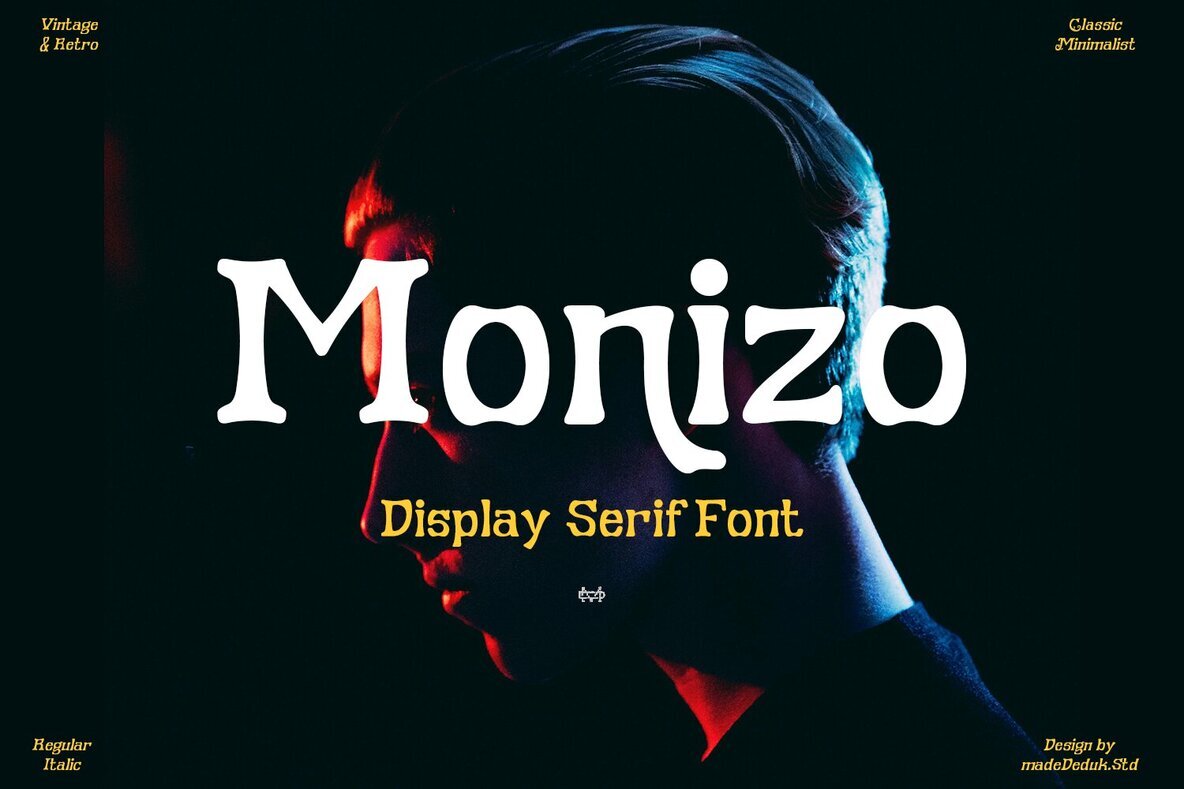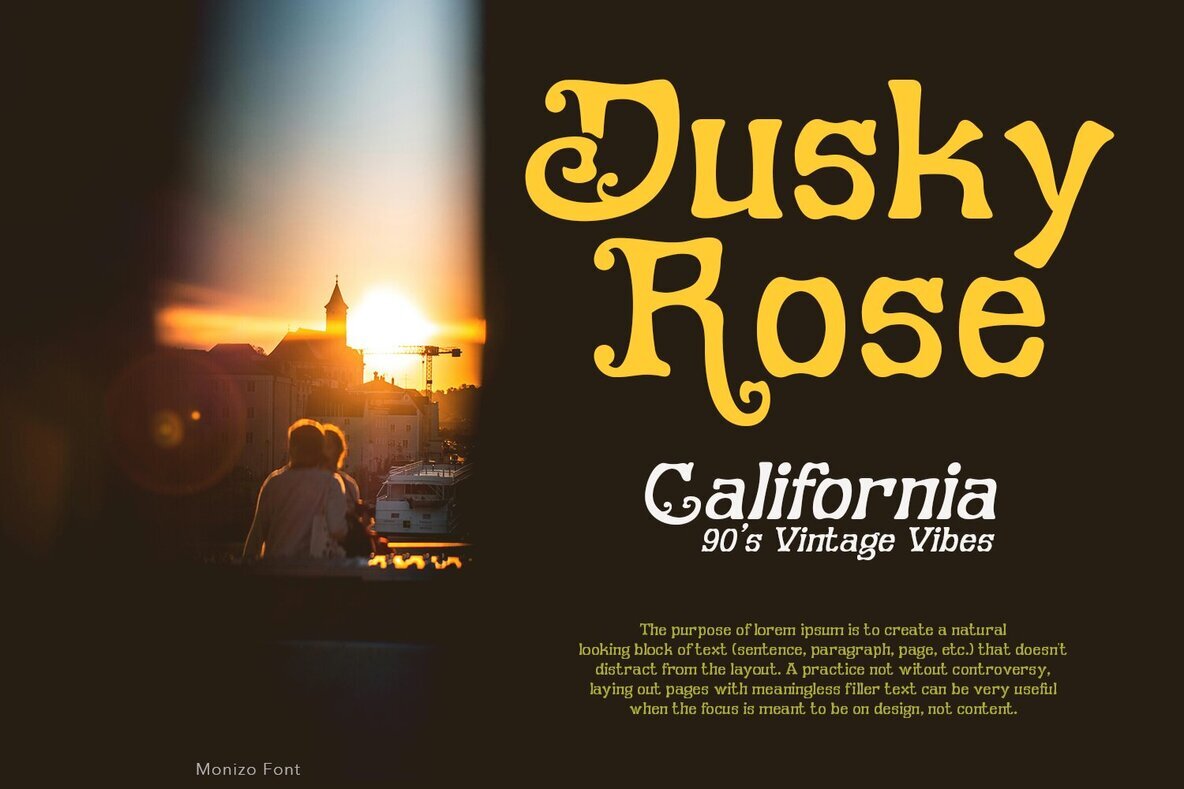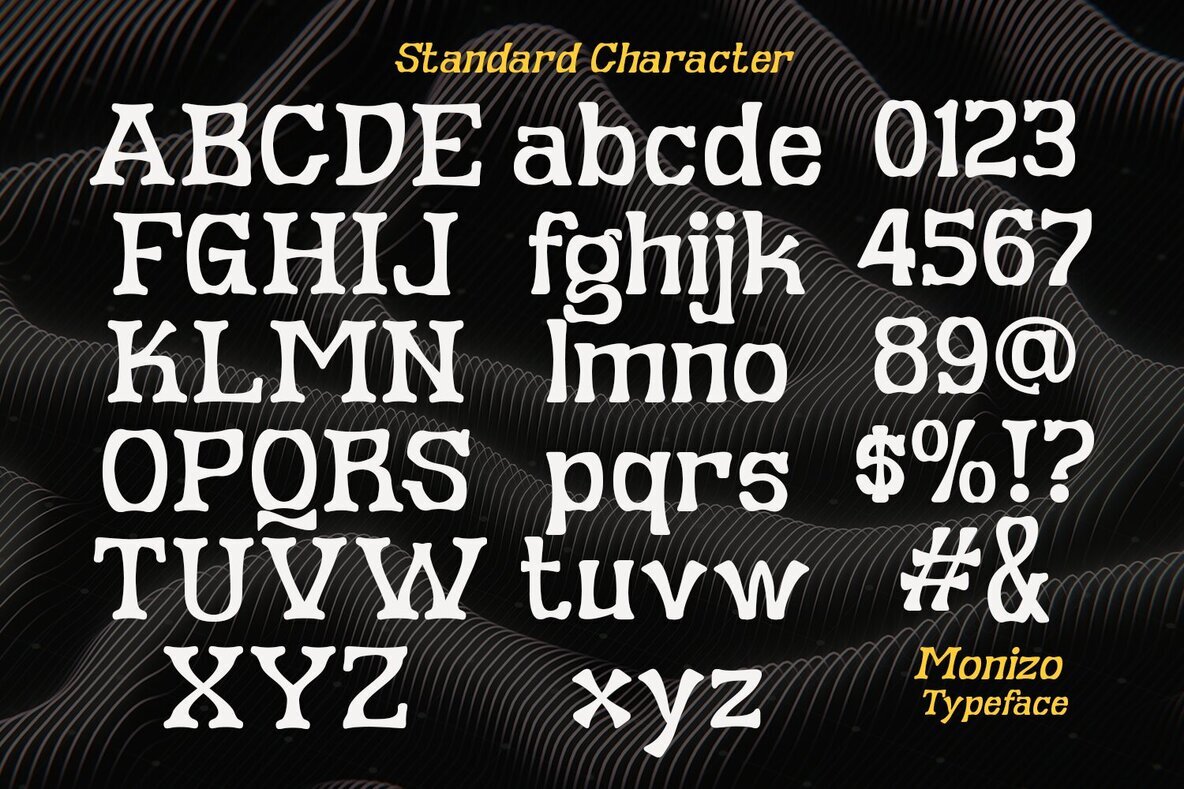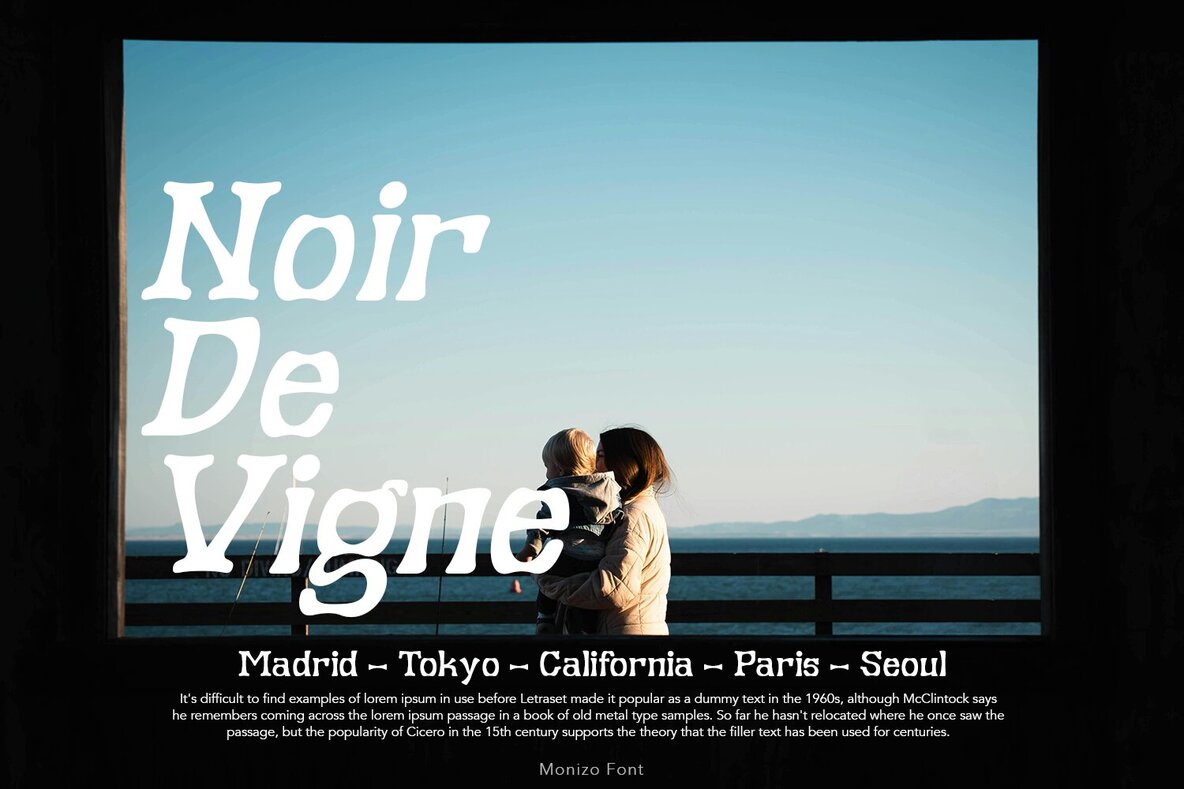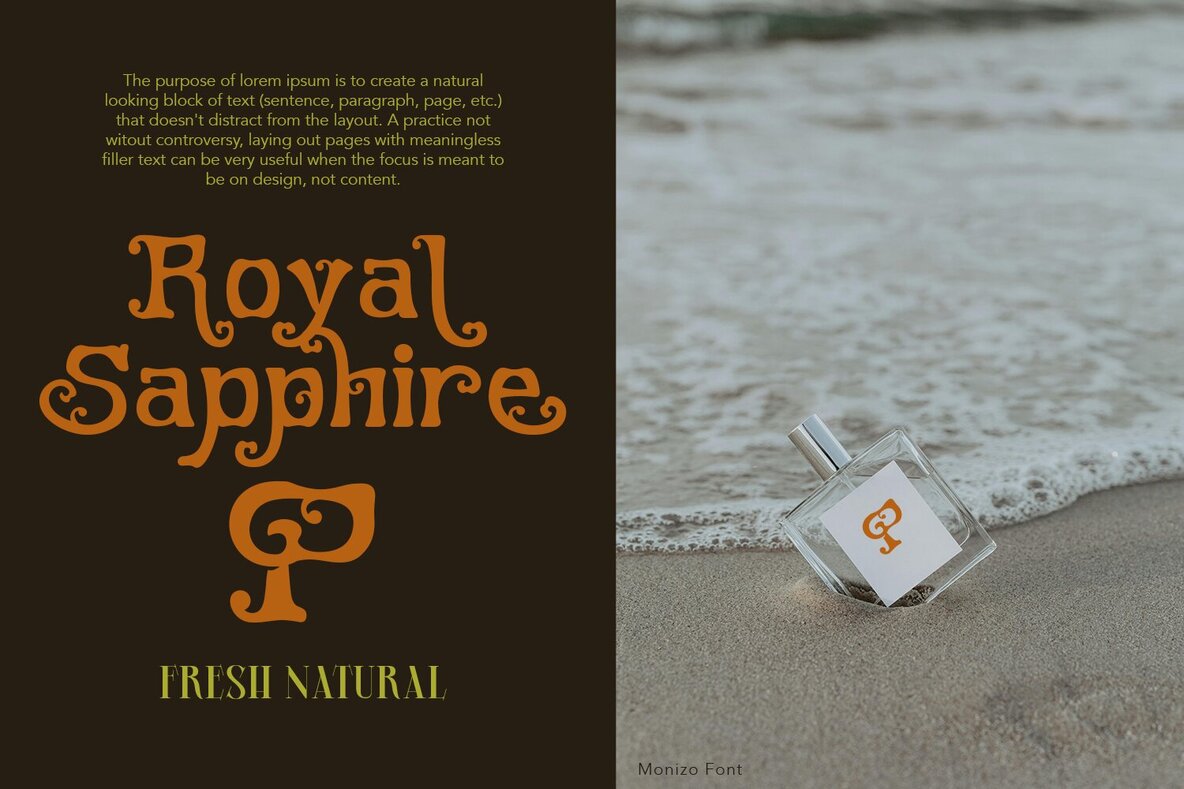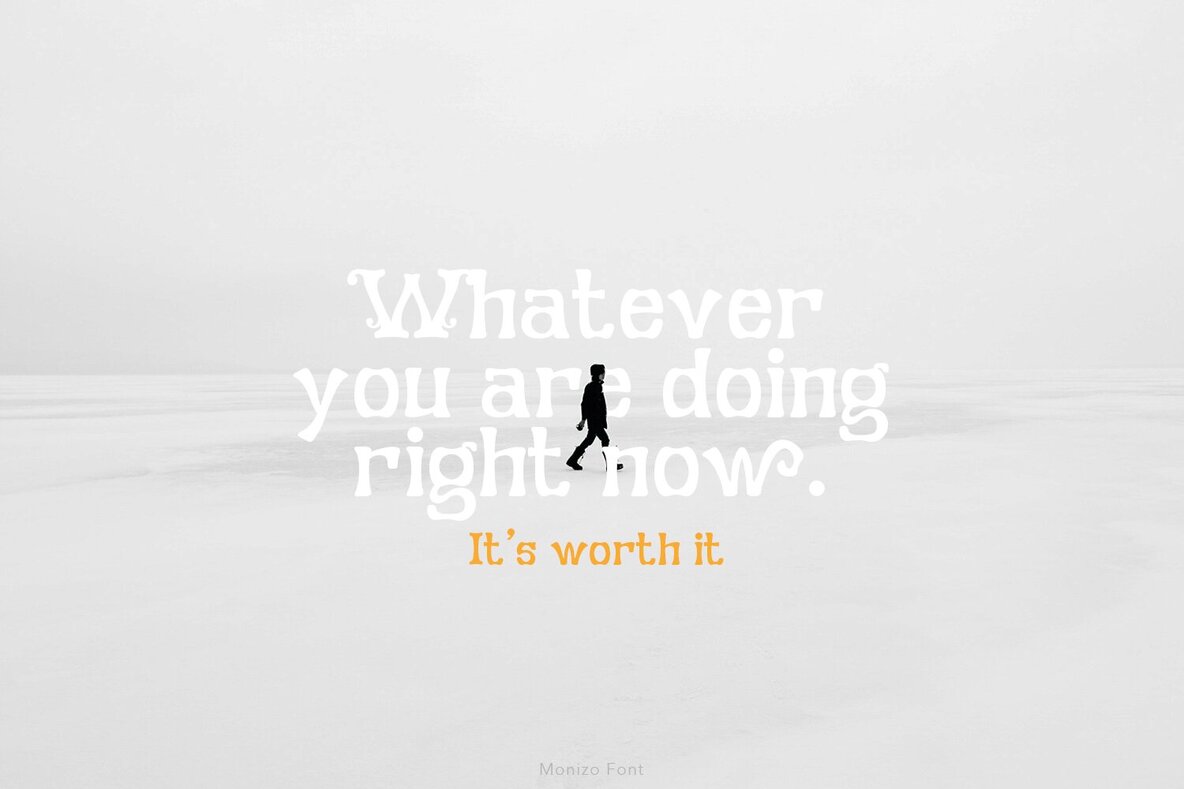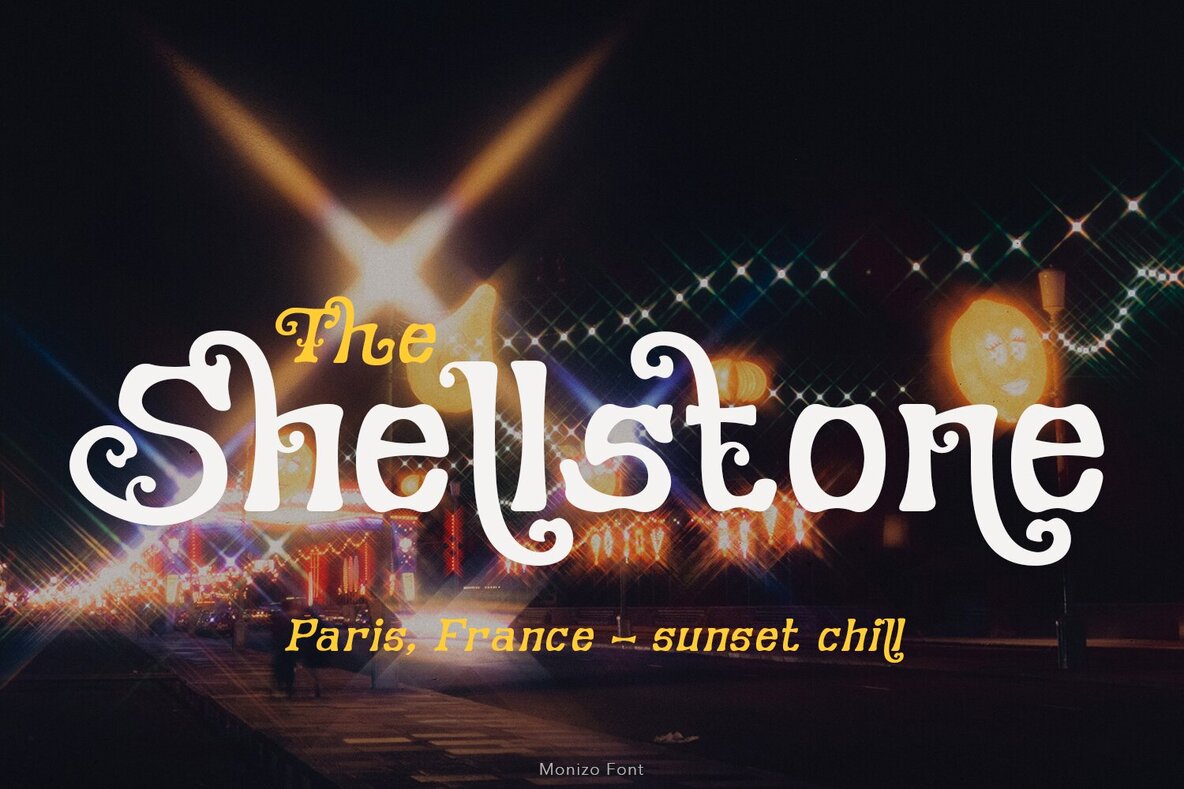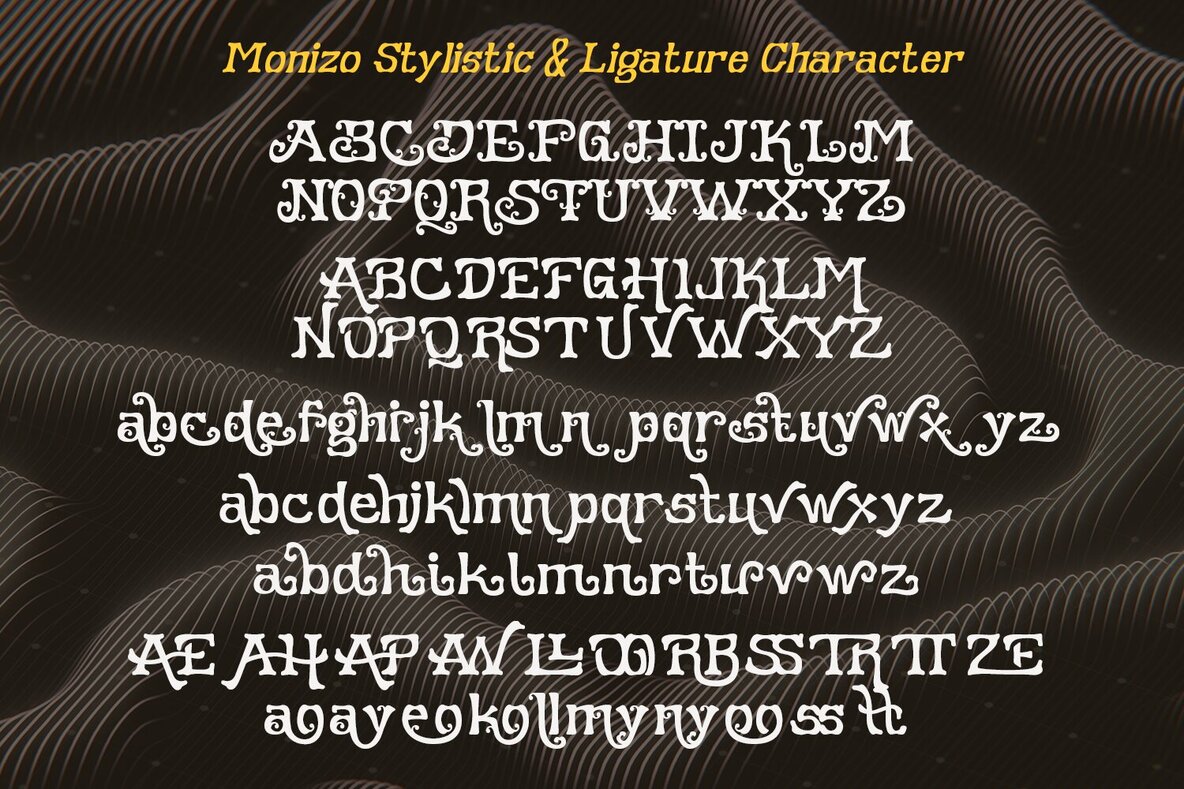
Monizo Font
Monizo captures the essence of the 80s retro style with its unique display serif design. This font, perfect for creating a comfortable reading rhythm, combines legibility with expressive shapes. Monizo features a single weight, making it adaptable and versatile for various design projects.Monizo Display Serif: 80s Retro Style